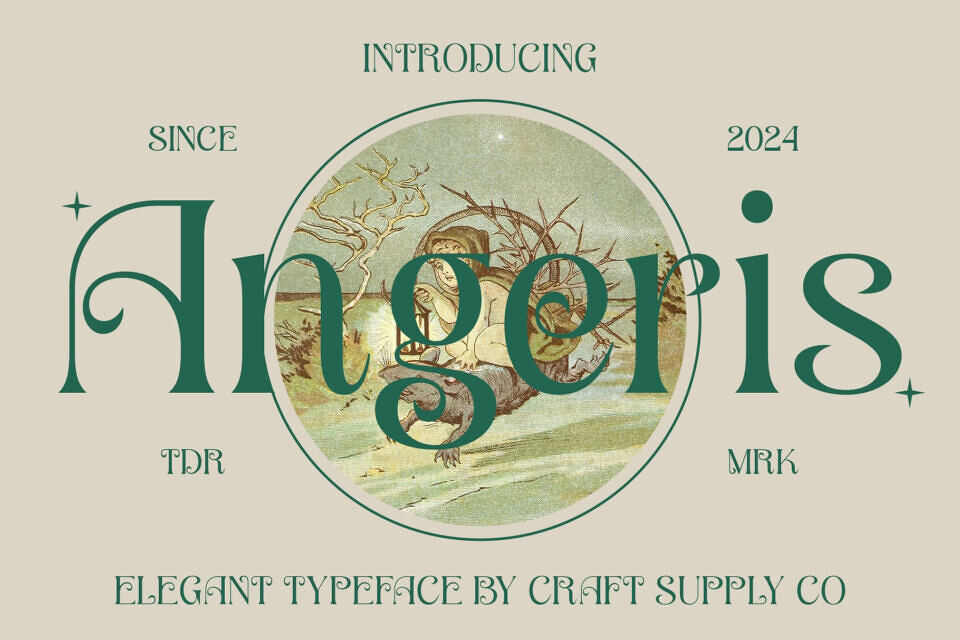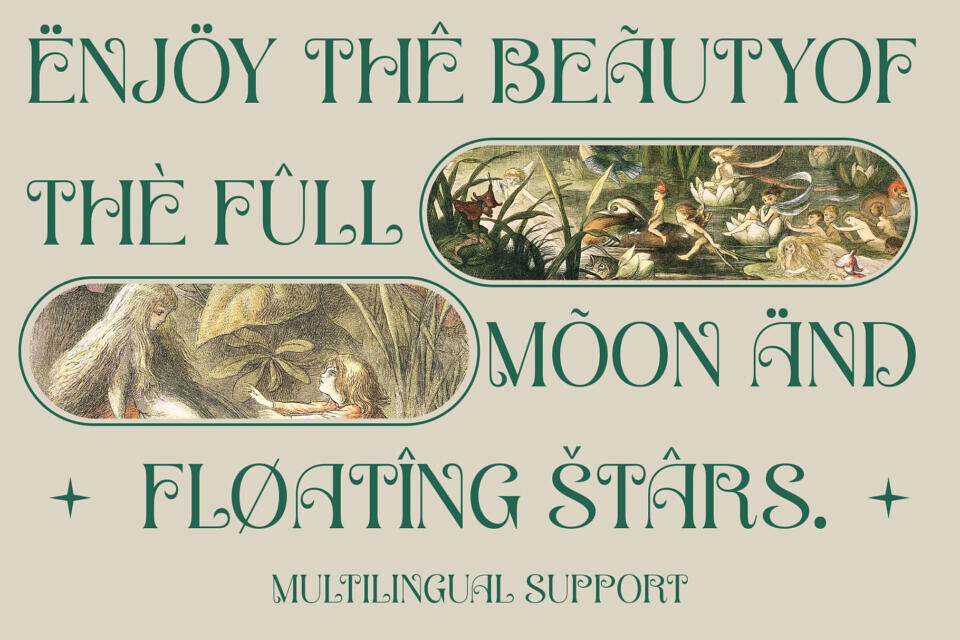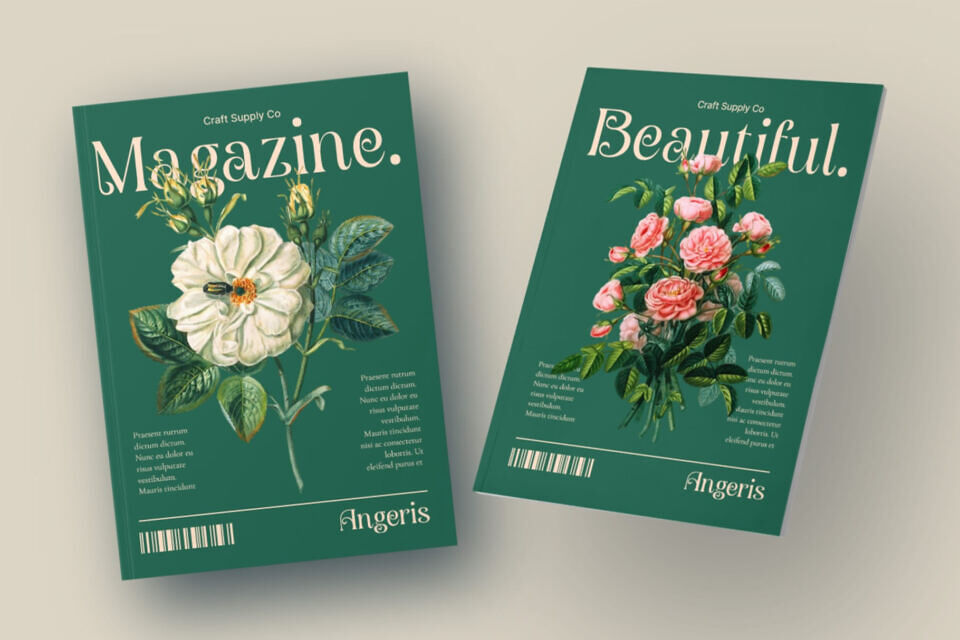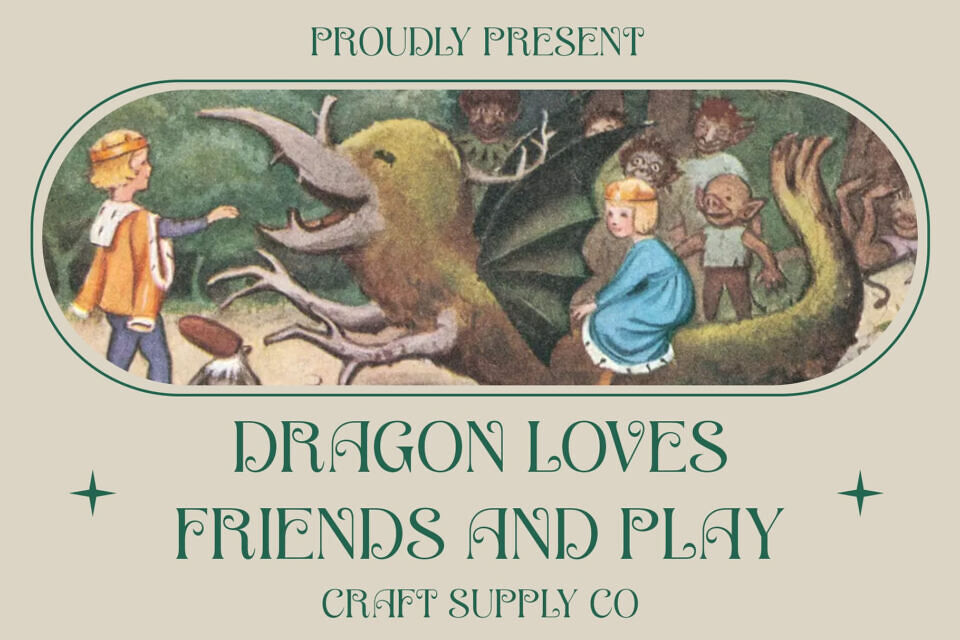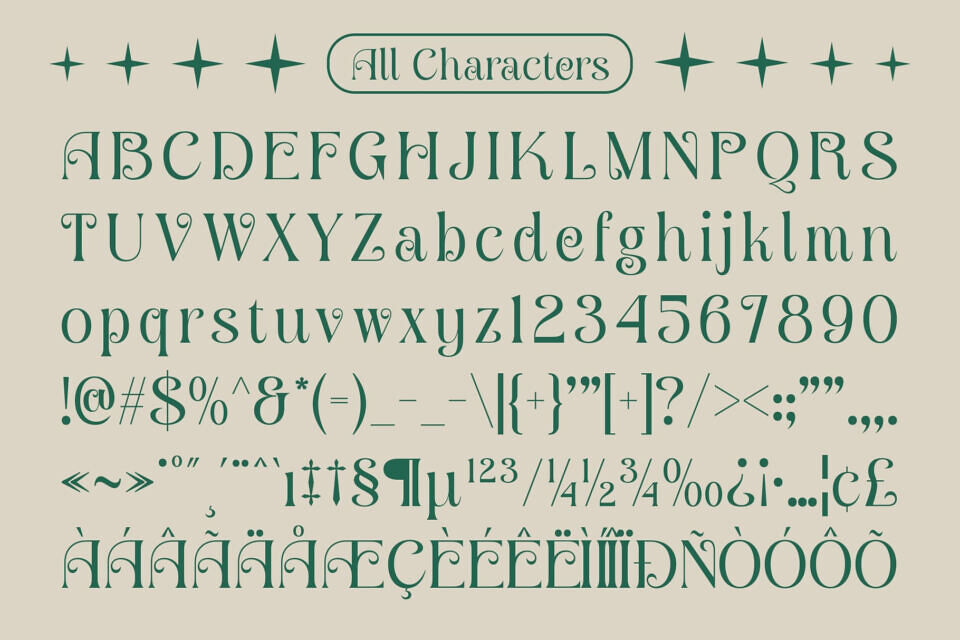
Angeris font draws inspiration from the iconic Art Nouveau movement, infusing it with a retro charm that evokes nostalgia. Its design reflects the intricate motifs and organic forms synonymous with the Art Nouveau era.
With its serif retro design, This font exudes timeless elegance, reminiscent of the classic typography of the early 20th century. The serif details add a touch of sophistication while maintaining readability and versatility.